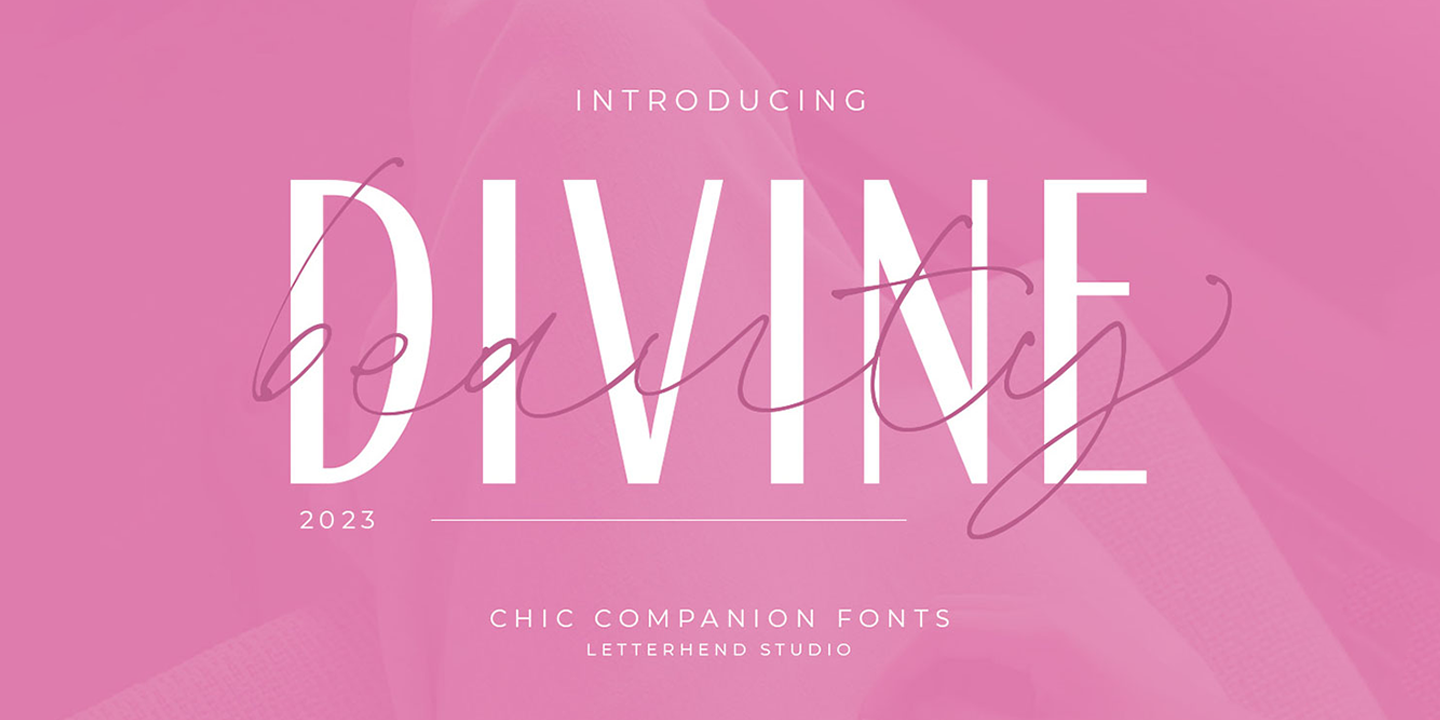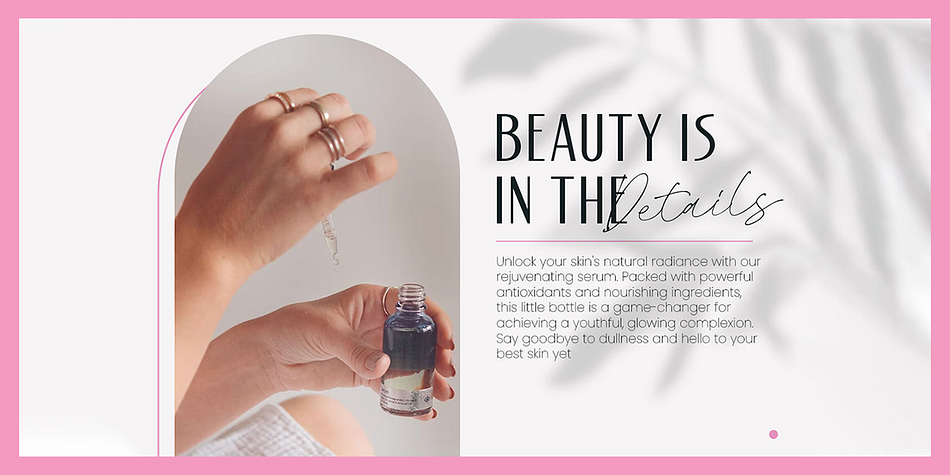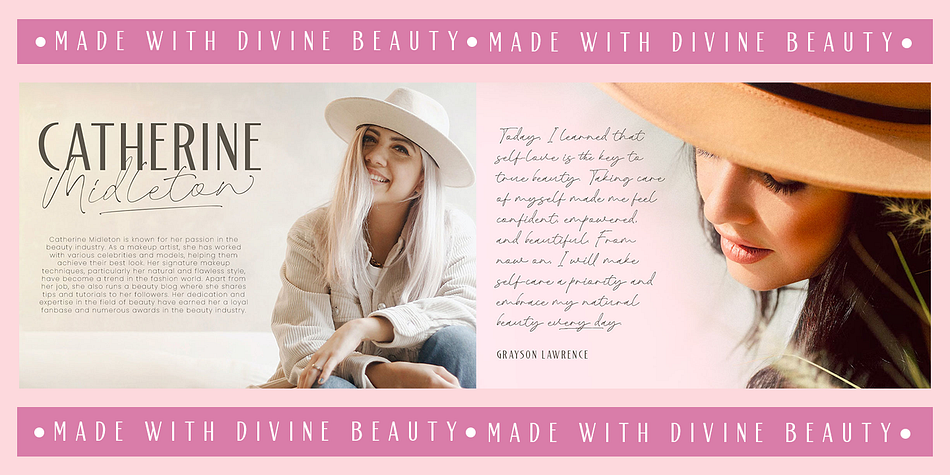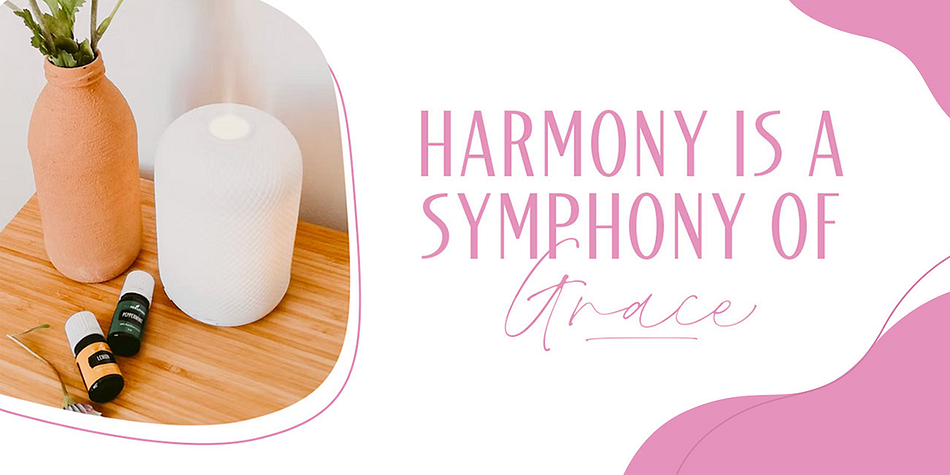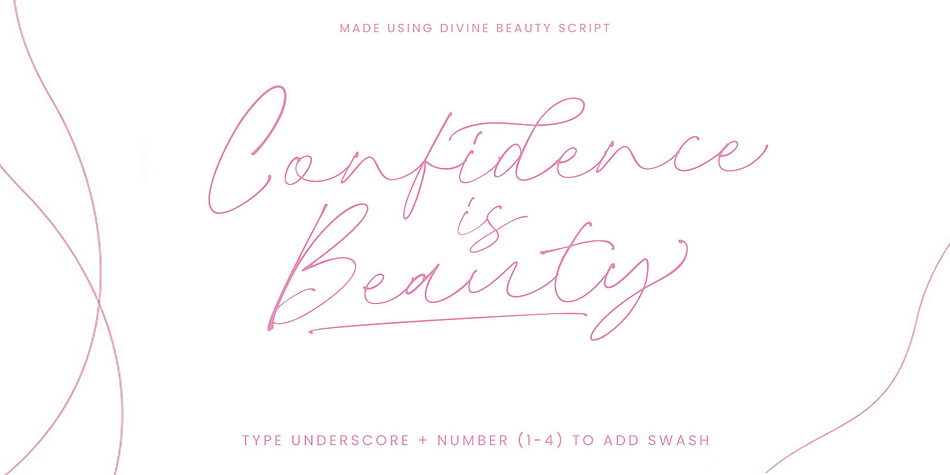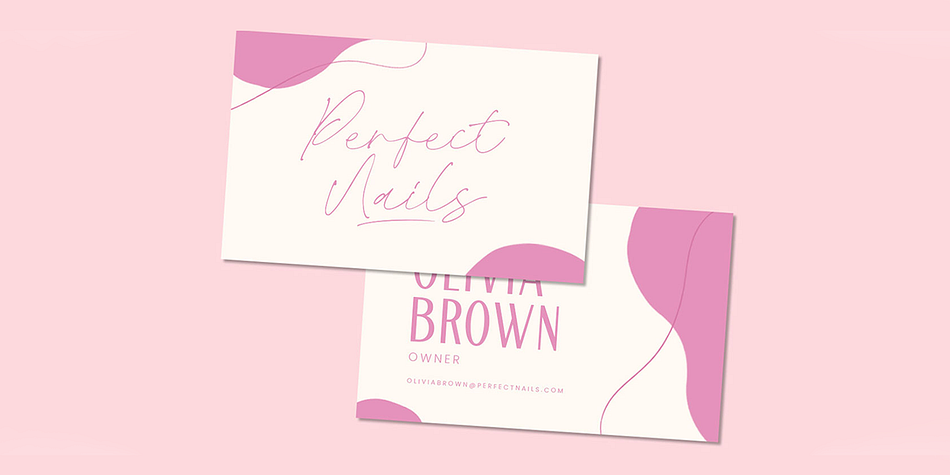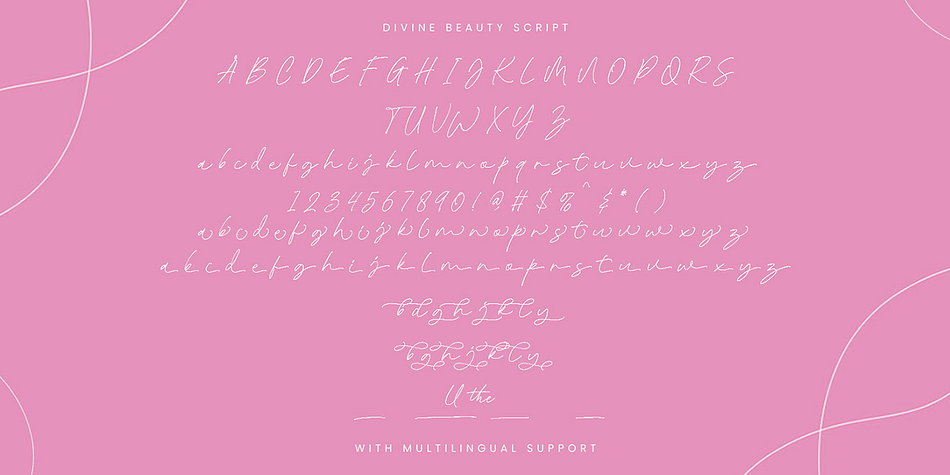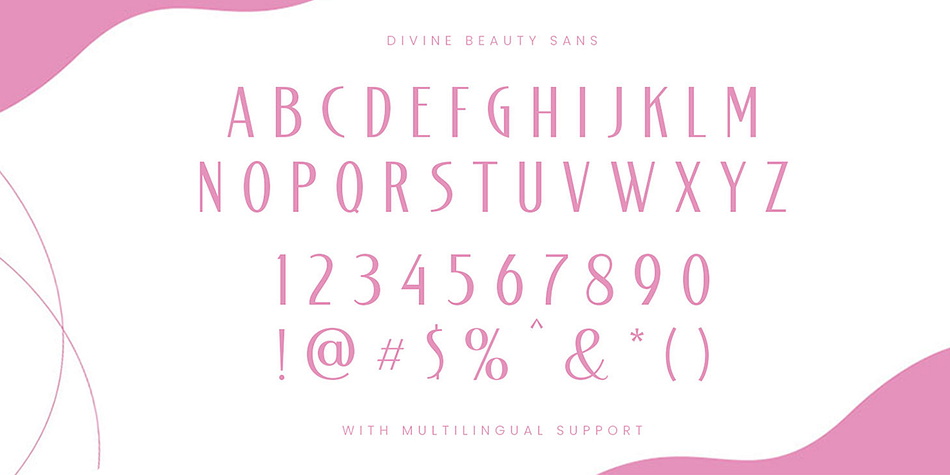
THE DEVINE BEAUTY
Designed by Hendry Juanda, The Devine Beauty is an art deco, display sans and modern calligraphy font family. This typeface has two styles and was published by Letterhend Studio.
The Devine Beauty font is characterized by its simplicity and modernity. The clean lines and balanced proportions of the sans-serif font complement the elegant curves and flourishes of the serif font, creating a harmonious and visually appealing pairing.
Overall, Devine Beauty is a stylish and refined font that is perfect for adding a touch of sophistication to any design, especially in logo, and the other various formal forms such as invitations, labels, logos, magazines, books, greeting / wedding cards, packaging, fashion, make up, stationery, novels, labels or any type of advertising purpose.